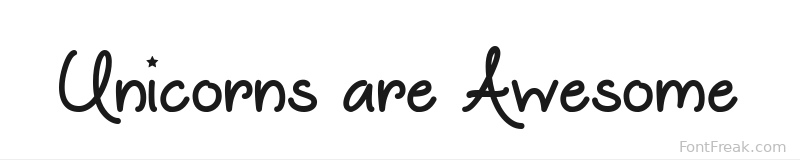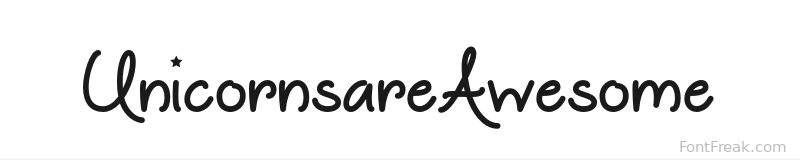
UnicornsareAwesome
Unicorns are Awesome
About UnicornsareAwesome
The UnicornsareAwesome font, crafted by Misti Hammers, is a delightful handwritten typeface that embodies whimsy and charm. This font stands out with its playful, flowing strokes and informal style, making it perfect for projects that require a touch of creativity and fun. The stroke weight is moderate, providing a balanced appearance that is both legible and engaging. The characters are well-spaced, allowing for easy reading, while the decorative elements, such as whimsical curls and stars, add a distinctive flair that captures the essence of imagination.
UnicornsareAwesome is particularly well-suited for a variety of creative uses. It shines in contexts such as children's book covers, where its playful nature can attract young readers. Additionally, it works beautifully for event invitations, especially birthday parties or themed celebrations that embrace fantasy and magic. Online content creators can utilize this font for social media graphics or blog headers, where a lighthearted tone is essential. Furthermore, small business owners in the creative sector, like boutiques or craft shops, may find it ideal for product packaging or promotional materials that seek to convey a friendly and approachable brand image.
The target audience for this font includes graphic designers, small business owners, and content creators who are looking to infuse their work with a sense of joy and creativity. Whether it’s for digital or print media, the UnicornsareAwesome font free download offers a unique opportunity for anyone seeking to add a whimsical touch to their designs.
In a world where fonts often blend into the background, UnicornsareAwesome emerges as a standout choice, thanks to its enchanting style and versatility. It's a font that not only communicates but also inspires, making it a valuable asset for various creative projects.